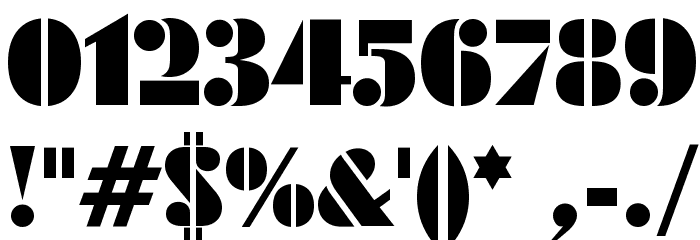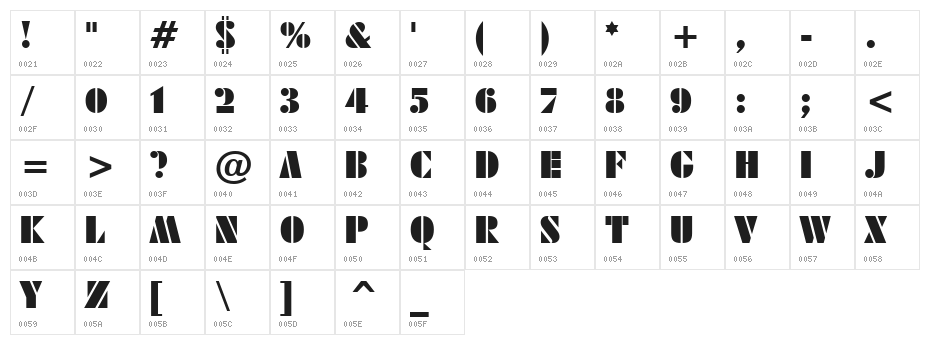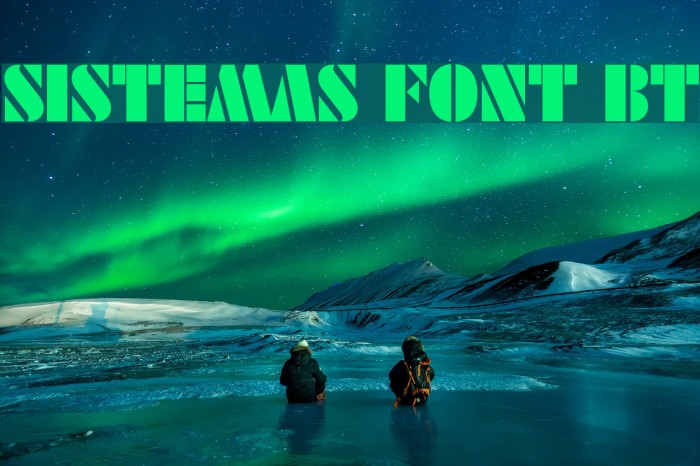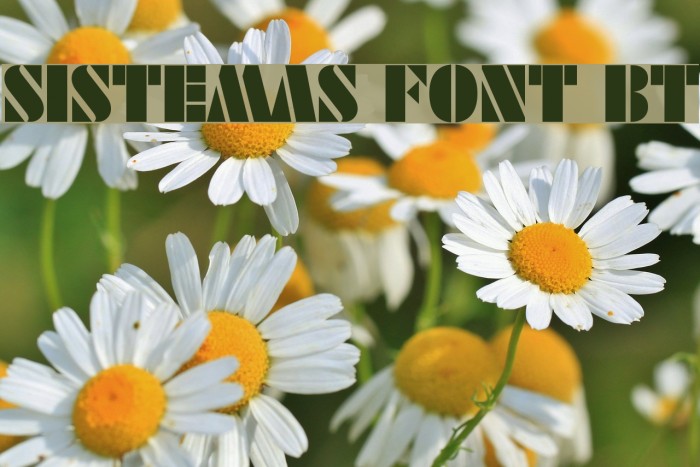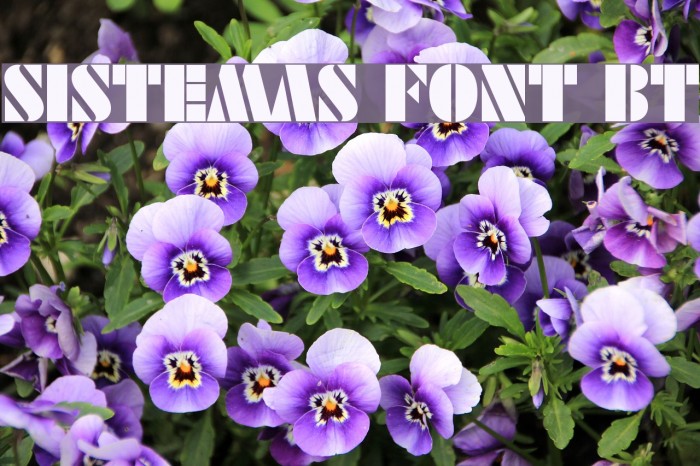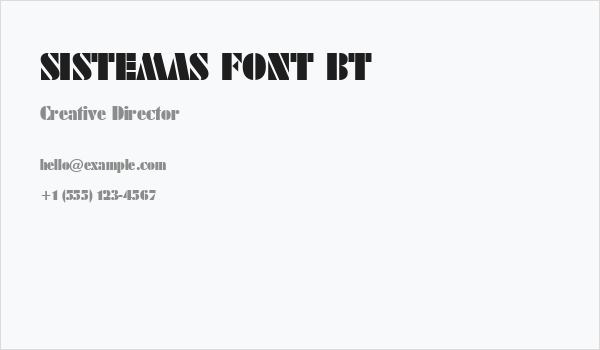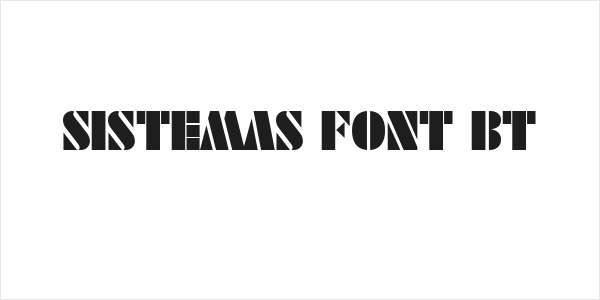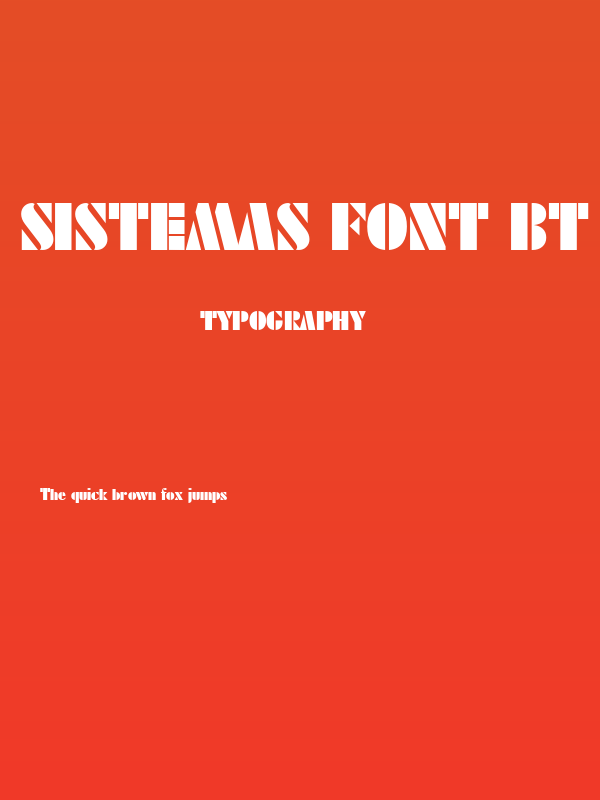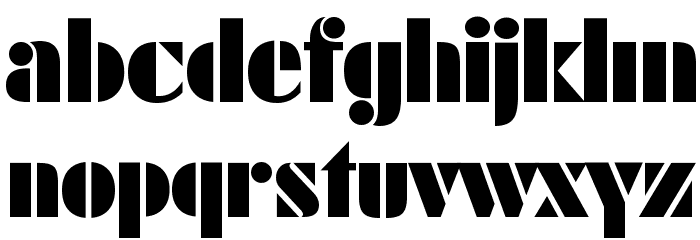
SISTEMAS FONT BT Font
SISTEMAS FONT BT Description
This font features a bold and striking design with geometric elements that create a sense of modernity and strength. The uppercase letters are characterized by sharp angles and thick strokes, giving them a commanding presence. The lowercase letters maintain a similar boldness, with rounded elements that add a touch of softness to the overall appearance. The numerals are consistent with the bold style, ensuring readability while maintaining the font's unique aesthetic. Special characters are designed to complement the overall style, making this font versatile for various applications.